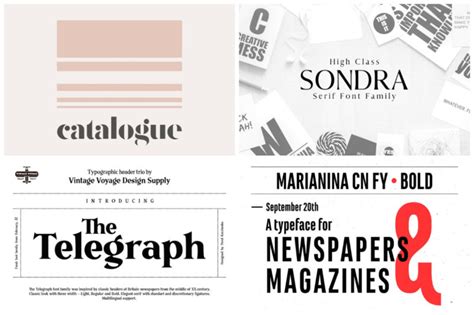
Decoding The Best Newspaper Logo Fonts For Impact
Decoding the Best Newspaper Logo Fonts for Impact
Hey everyone! Today, we’re diving deep into the world of newspaper logo fonts . Ever stopped to admire the subtle (or not-so-subtle) typography of your favorite news source? Well, those fonts aren’t just picked at random. They’re carefully chosen to convey a specific message, a tone, and ultimately, build brand recognition. Selecting the perfect font is a crucial step in creating a strong visual identity for any newspaper. This article will explore the ins and outs of newspaper logo fonts, helping you understand their impact and offering insights into choosing the best ones for your needs. We’ll cover everything from classic serifs that scream tradition to modern sans-serifs that project a contemporary feel. So, grab your coffee, settle in, and let’s decode the secrets behind those iconic newspaper logos!
The Psychology of Font Choices in Newspaper Logos
Okay, guys, let’s talk about the psychology behind font choices. Fonts aren’t just pretty letters; they’re loaded with meaning. They communicate feelings and ideas, shaping how readers perceive a newspaper’s brand. When it comes to newspaper logos, the font is often the first thing people notice. It sets the stage, giving potential readers an immediate impression of what the publication is all about. For instance, a font with serifs (those little feet on the letters) often suggests tradition, reliability, and a long-standing history . Think about the venerable New York Times or The Wall Street Journal; their logos use classic serif fonts that reinforce their reputation as established, trustworthy news sources. On the other hand, sans-serif fonts , which lack those little feet, frequently convey a sense of modernity, clarity, and innovation. They can give a newspaper a sleek, contemporary edge. Many modern publications, especially those focused on tech or younger demographics, opt for sans-serif fonts to appear current and forward-thinking. Then, we have the weight of a font, which is its boldness. A bold font suggests authority and strength, while a lighter weight can feel more approachable and refined. The font’s weight plays a huge role in the visual hierarchy of the logo, guiding the viewer’s eye and communicating the importance of the newspaper’s name. It’s not just about aesthetics; it’s about subtle cues that tell a story. Moreover, consider the spacing and kerning (the space between letters) of the font. Even seemingly small adjustments can change the overall mood. Tight kerning can make a logo feel compact and powerful, whereas looser spacing can create a more open, airy, and inviting feel. So, next time you see a newspaper logo, take a moment to analyze the font. Ask yourself: What message is this font sending? Does it align with the newspaper’s editorial voice and target audience? You’ll be amazed at how much a simple font can reveal!
It is important to remember that choosing a font is a process. Consider the publication’s values and brand identity, then ask what is best to represent your brand. Don’t be afraid to experiment with different options and get feedback from your team.
Alright, let’s look at some popular font categories and how they impact a newspaper logo. First up, we have serif fonts . These fonts, like Times New Roman, Georgia, and Baskerville, are classic and convey a sense of history, authority, and reliability. They’re often associated with traditional journalism, in-depth reporting, and trusted news sources. Serifs are generally considered very readable in body text, which can make them great for headlines and logos. They provide a sense of established authority. Newspapers like The New York Times, The Wall Street Journal, and The Guardian are prime examples of publications using serif fonts to project a sense of trustworthiness and longevity. Then, we move on to sans-serif fonts . Sans-serif fonts (e.g., Helvetica, Arial, Futura) lack the small strokes at the end of each letter, giving them a more modern, clean, and often minimalist look. They’re associated with contemporary design, clarity, and often with newspapers aiming to reach younger or more tech-savvy audiences. Sans-serif fonts work well in digital environments and are often used to convey a sense of innovation and forward-thinking. Think of the logos for publications like Wired or The Verge, they often opt for sans-serif fonts. Next, we have slab serif fonts . Slab serifs are a unique breed. They are similar to serif fonts but boast very thick, block-like serifs. Slab serifs can deliver a strong sense of boldness and are often used to create a strong visual impact. They are less common in newspaper logos, but they can be found in publications that want to convey a sense of strength or a retro feel. Script fonts are also sometimes used in newspaper logos, but with greater caution. Script fonts mimic handwriting and can give a publication a touch of elegance or a more personal touch. They are less common in modern newspaper logos due to potential readability issues. They may be used sparingly, possibly as a secondary element. Display fonts , which are designed for use at larger sizes in headlines and logos, come in a variety of styles. Display fonts often convey a distinct personality or theme, but they need to be used carefully, ensuring readability. Choosing the right font category really depends on the newspaper’s brand identity. It’s important to research and assess the strengths and weaknesses of each type, and whether they align with your newspaper’s values and your reader’s expectations.
Choosing the Right Font: A Step-by-Step Guide
Okay, so how do you go about choosing the perfect font for your newspaper logo? It can feel overwhelming, but don’t worry, here’s a step-by-step guide to help you out.
• Define Your Brand Identity : Start by clearly defining your brand’s personality and values. What is your newspaper’s mission? Who is your target audience? Consider the tone of your content – is it formal, informal, serious, lighthearted? All of these factors will influence your font choice. For example, a newspaper focused on investigative journalism might lean toward a strong, authoritative serif font. A publication targeting a younger audience might choose a modern, clean sans-serif. Get clear about what your publication stands for. Be sure to document these elements.
• Research Your Competition : Take a look at the logos of competing newspapers and publications in your market. What fonts are they using? What kind of messages are they sending? This isn’t about copying; it’s about understanding industry trends and finding ways to differentiate your brand. Identify what is successful in your market, and then identify your unique positioning.
• Create a Mood Board : Gather examples of logos, fonts, and design elements that resonate with your brand. Think about the overall aesthetic you want to achieve. A mood board is a visual reference that can help you explore different styles and create a cohesive look and feel.
• Experiment with Font Combinations : Don’t limit yourself to a single font. Play with font pairings. You might use a serif font for the newspaper’s name and a sans-serif for the tagline or a subtitle. Test different combinations to see what works best. Good typography isn’t just about the font, but about how it works with other elements.
• Consider Readability : Make sure the font is legible at different sizes and in various formats (print, online, mobile). Poor readability can defeat the purpose of your logo. Ensure the font is easily readable on your website, app, and any other platforms where your brand lives.
• Get Feedback : Once you’ve narrowed down your font choices, get feedback from your team, stakeholders, and even potential readers. Do the fonts resonate with them? Do they convey the right message? Getting multiple perspectives can save you from a major branding misstep.
• Test on Different Platforms : Make sure your logo looks good on various platforms, from print materials to digital applications. Consider how it will appear on your website, social media profiles, and any other marketing materials.
• Choose a Font License : Be sure to understand the font’s licensing terms. Some fonts are free to use, while others require a commercial license. Make sure you have the proper rights to use the font in your logo and across your branding materials.
• Finalize and Implement : After you’ve made your decision and have considered all factors, finalize your logo design and apply it consistently across all of your branding materials. Consistency is key when it comes to brand recognition.
Avoiding Common Font Mistakes
Alright, guys, let’s talk about some common font mistakes to avoid. Firstly, don’t just pick a font because it looks